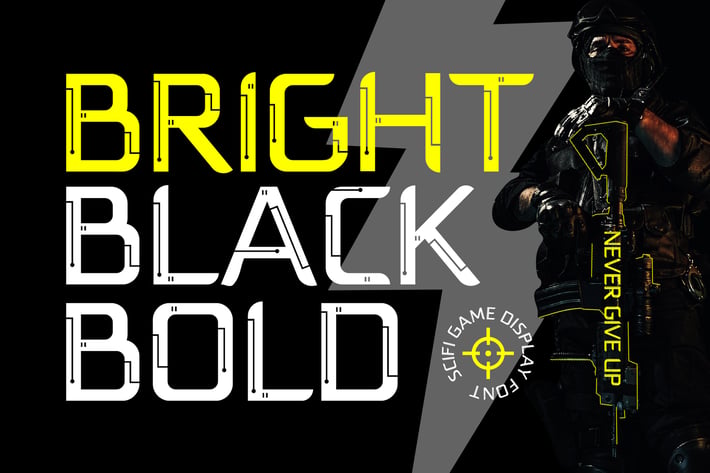
Voltrix - Electric Scifi Game Font
Voltrix - Electric Scifi Font - Robotic Game Display Sans Serif Font
Voltrix - Futuristic Game Sans Serif Display Font is perfect for your up coming projects. Such as logo branding, editorial design, stationery design, esport design, 80s retro design, game industry, sport racing, super car brand, music poster, blog design, modern advertising design, card invitation, art quote, home decor, book/cover title, special events and any more.